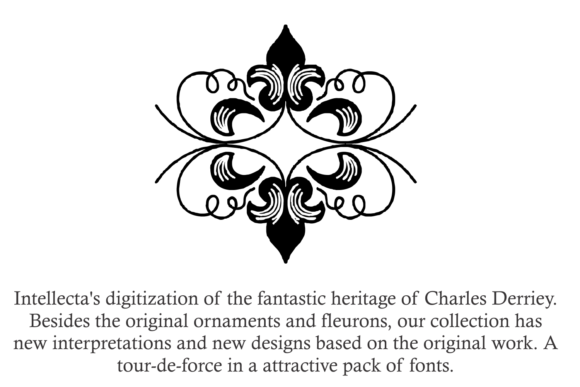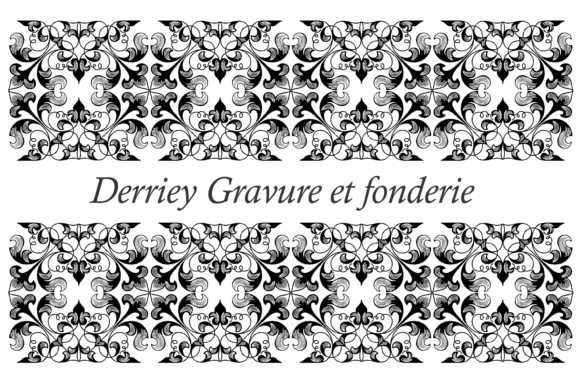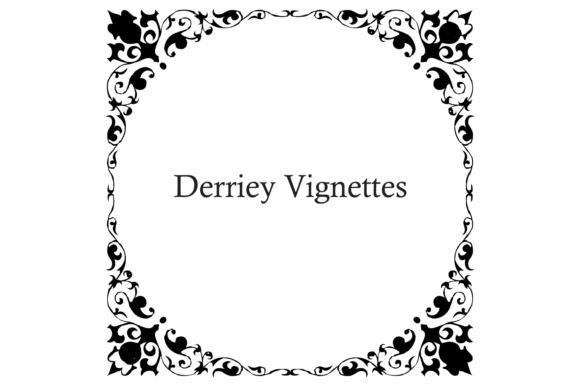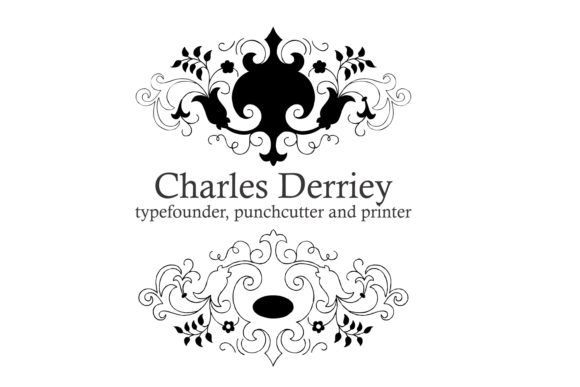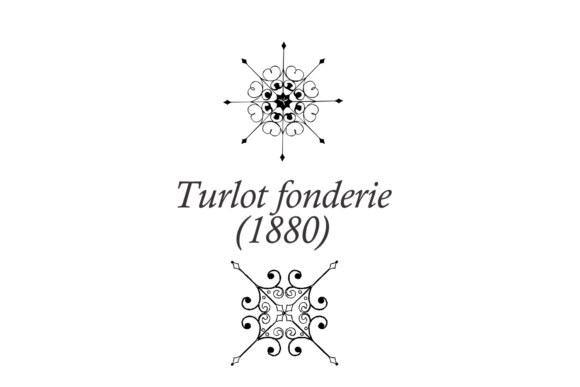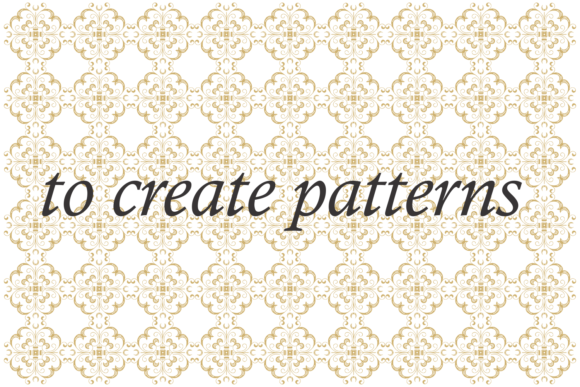
Introduction to Derriey Vignettes Family Font
Intellecta’s digitization of the fantastic heritage of Charles Derriey.
Besides the original ornaments and fleurons, this collection has new interpretations and new designs based on the original work A tour-de-force by Iza W.
Key Features of Derriey Vignettes Family Font